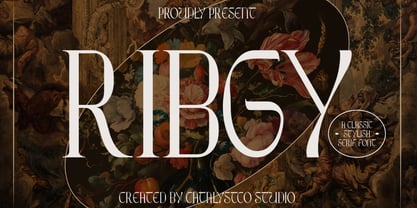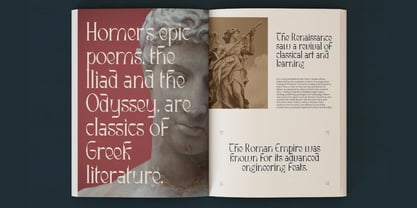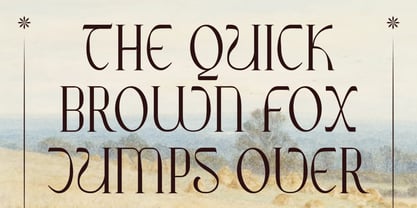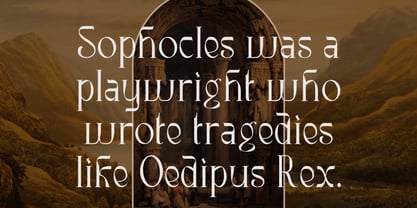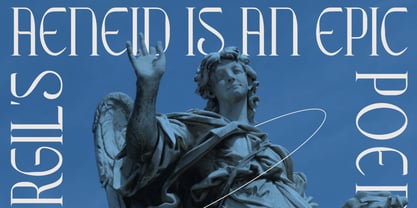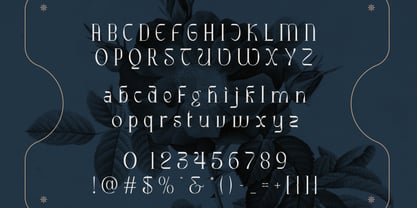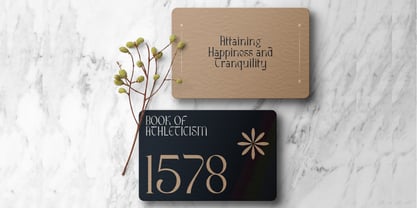
Ribgy
by Catalystco Std
The Ribgy Classic Stylish Serif Font is an artistic blend of historical elegance and modern flair. Its elongated letterforms, curved terminals, and graceful serifs echo the sophistication of vintage typography while introducing a fresh, contemporary edge. The result is a typeface that feels both timeless and bold — ideal for branding, editorial headlines, posters, and decorative design projects. Equipped with uppercase and lowercase letters, numerals, punctuation, Ribgy offers creative flexibility for various applications. From elegant magazine titles to luxurious brand identities, this serif font adds drama, charm, and sophistication to every layout.